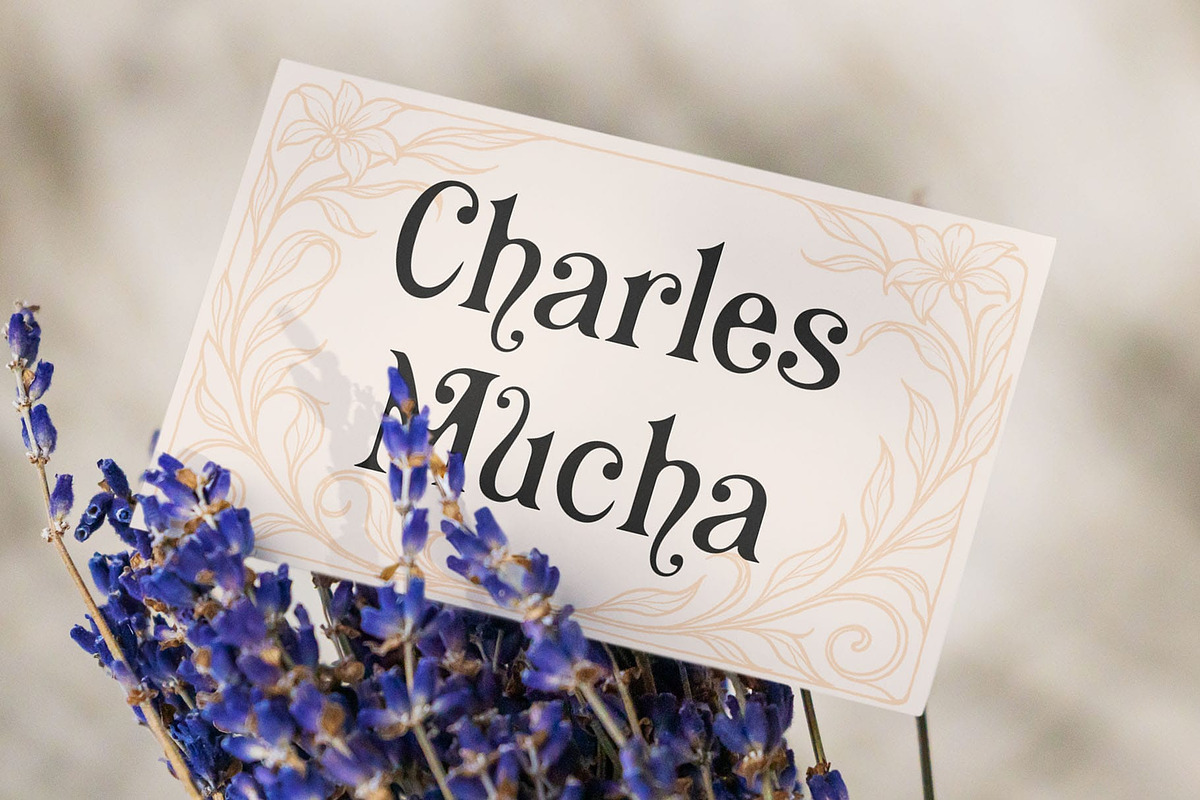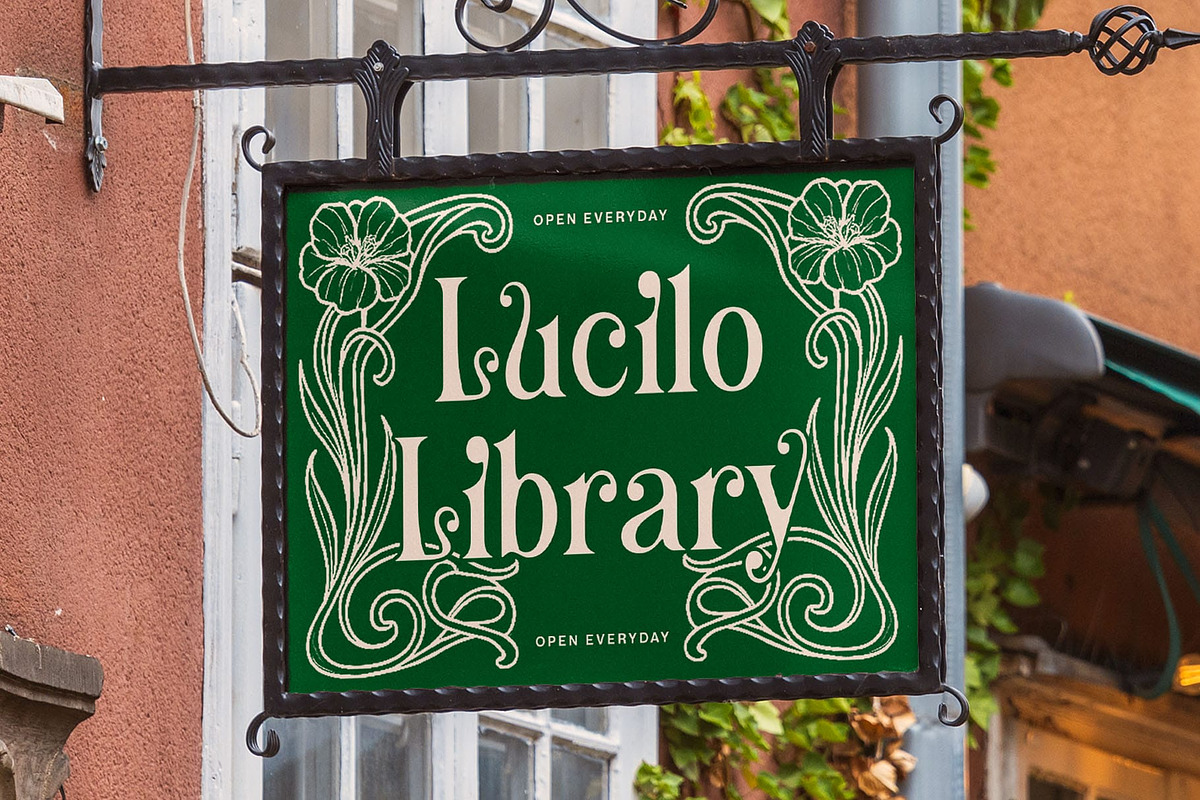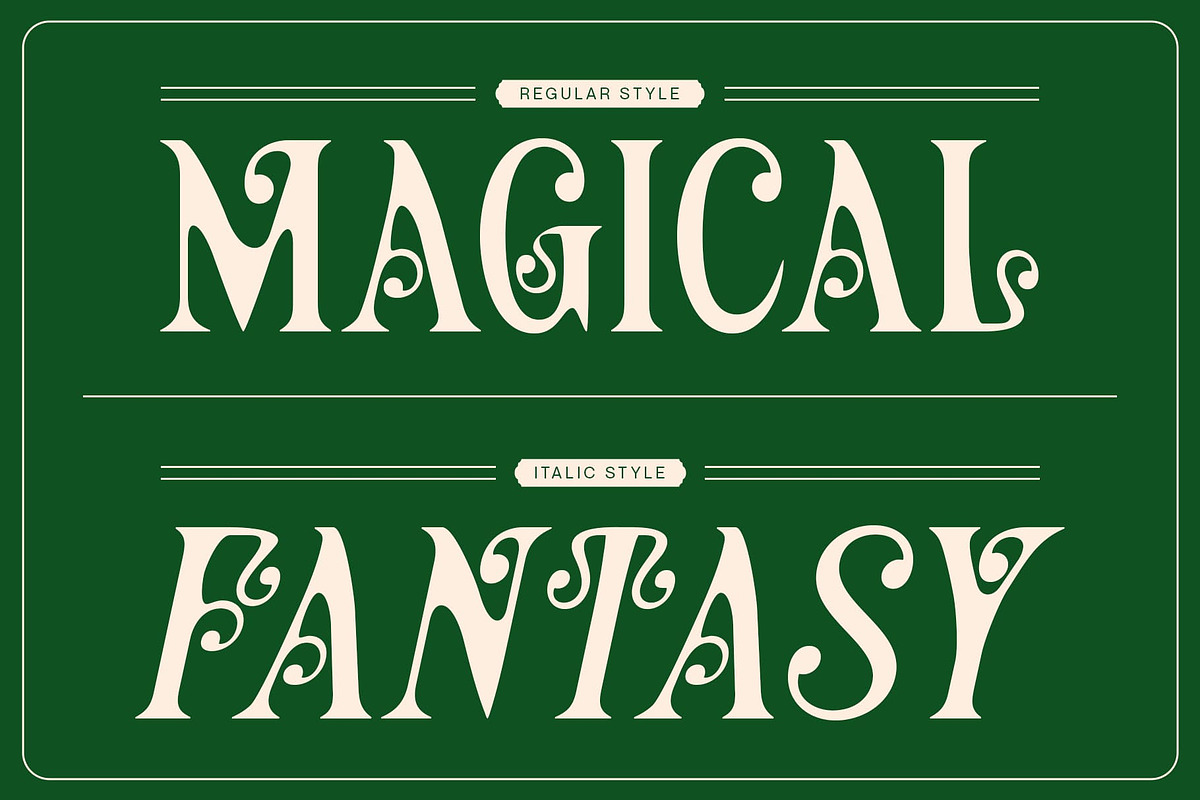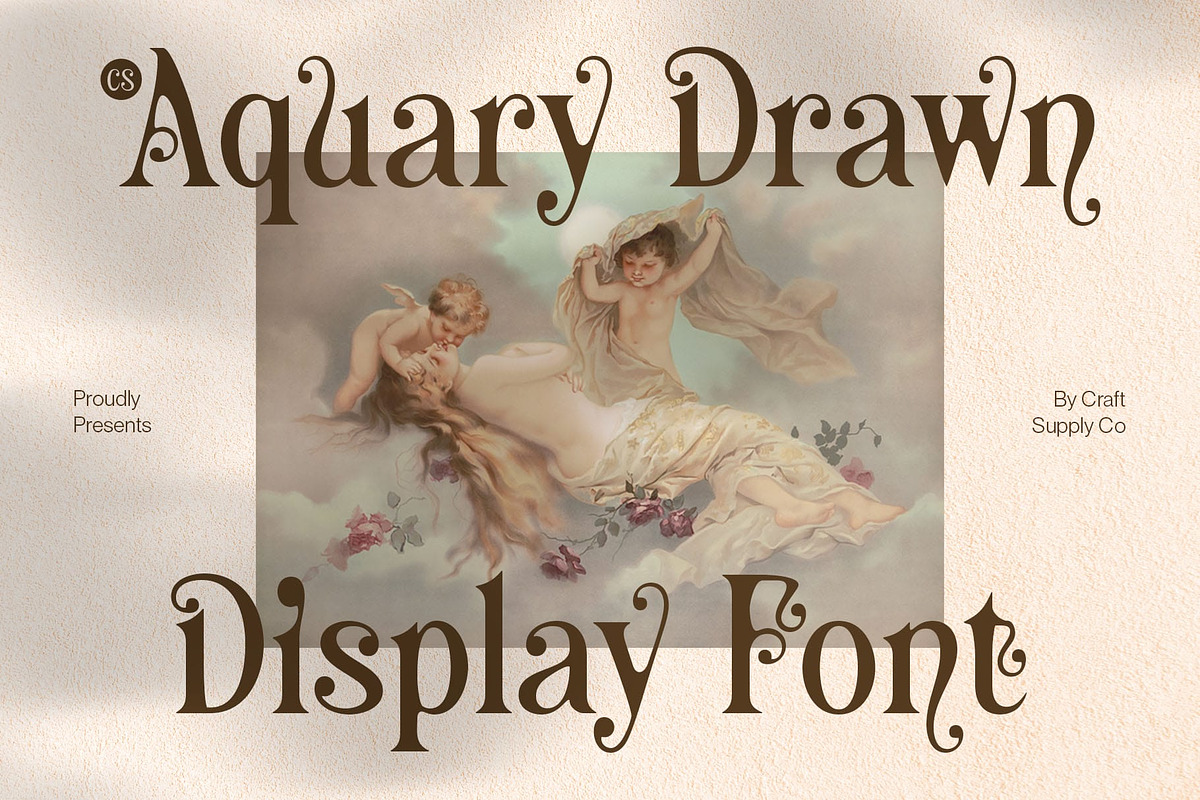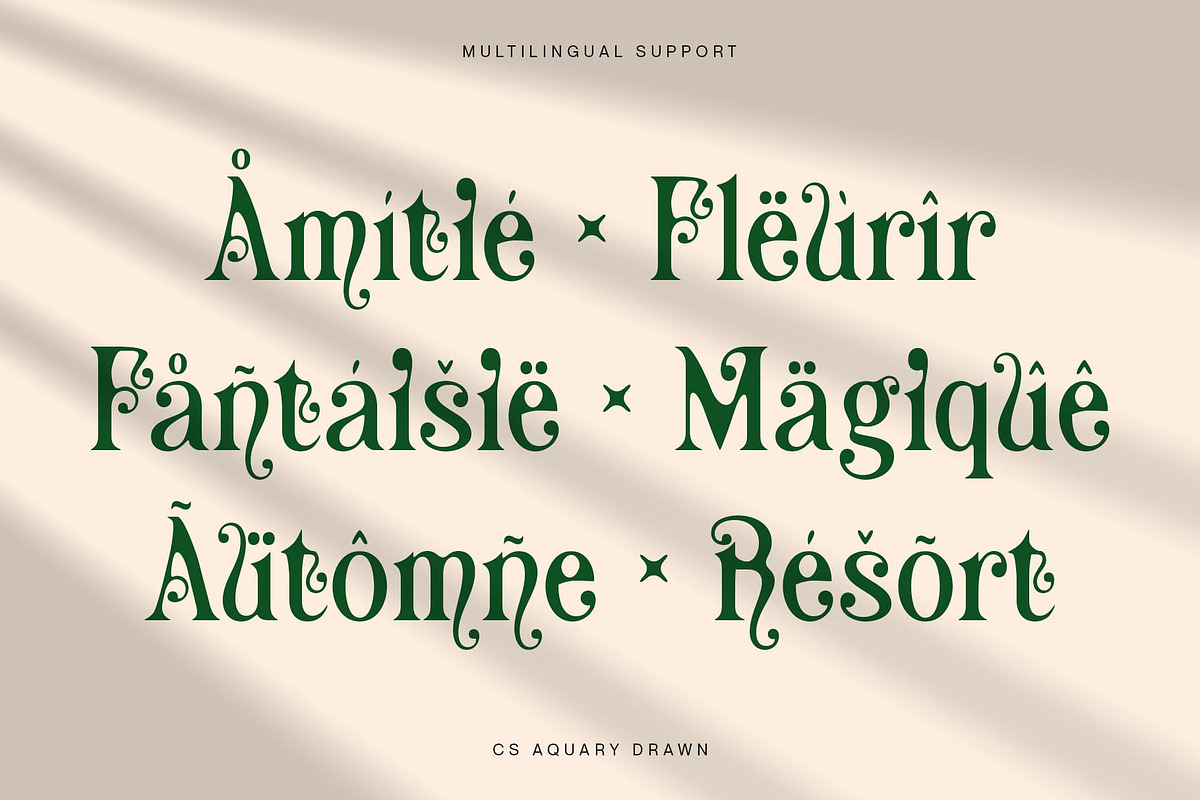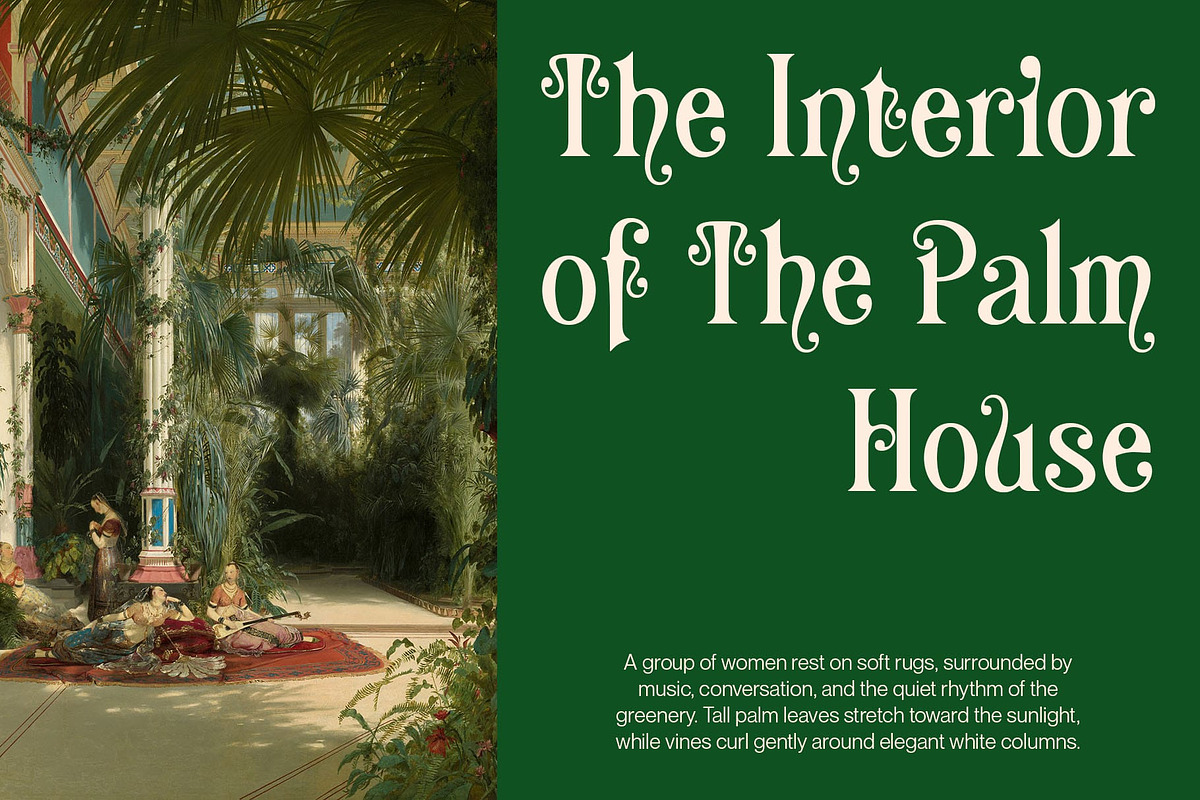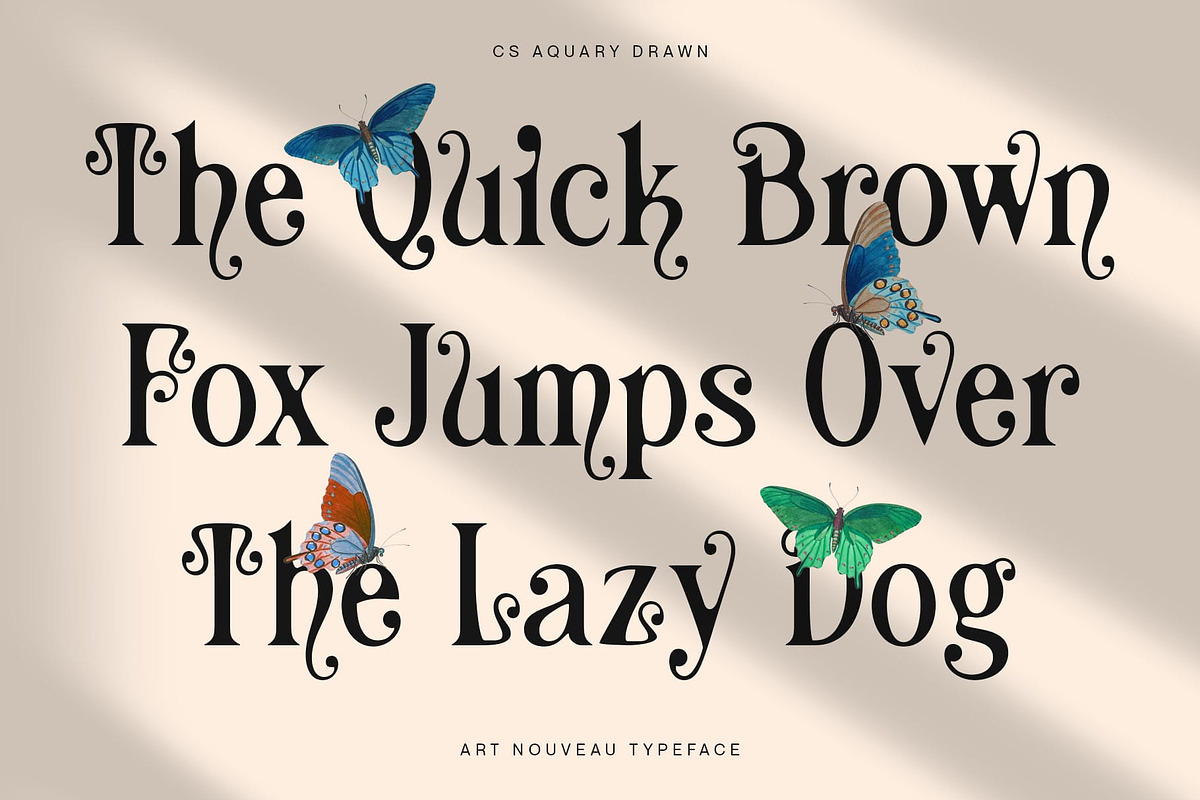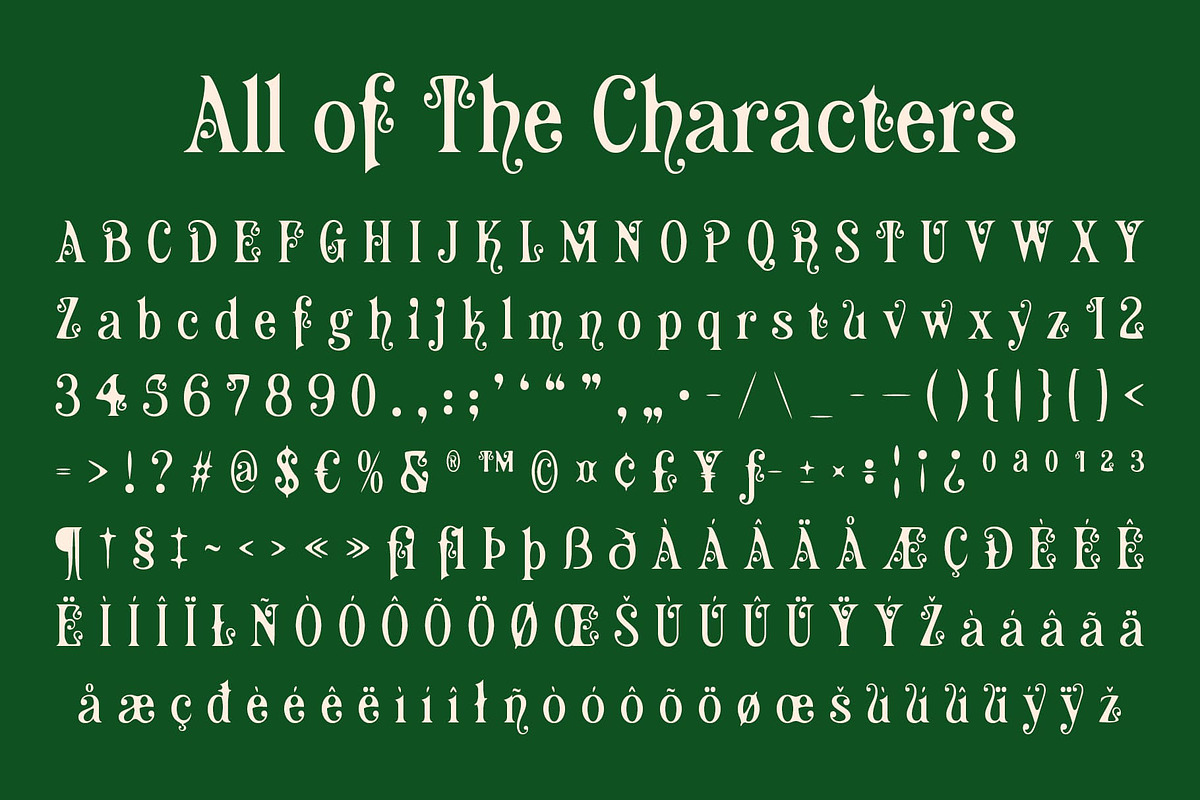
CS Aquary Drawn
CS Aquary Drawn – Where Minimalism Meets Enchanted Expression
Elegant Serif Structure with a Magical Essence CS Aquary Drawn is a modern display serif font that pairs a clean and minimalist form with delicate fantasy-inspired curves. Its refined structure brings sophistication, while its subtle stylistic nuances hint at a whimsical, otherworldly charm.
Drawn Effect for Artistic and Organic Texture The hand-drawn effect enhances each letterform with gentle irregularities and organic strokes, softening the modern structure with an artistic touch. This treatment introduces a tactile sense of craftsmanship and makes the font appear warm, expressive, and visually engaging. It’s ideal for designs where a digital-meets-handmade aesthetic is desired.
Versatile for Whimsical and Refined Projects Whether you’re designing book covers, editorials, or branding with a mystical theme, this fantasy font delivers a unique voice. It speaks of serenity and magic, making it suitable for both literary and luxury applications. The font effortlessly merges a contemporary serif style with hints of storytelling and wonder.
Perfect for Branding, Publishing, and Fantasy-Themed Designs This font is especially effective in creative branding, upscale packaging, children’s literature, or lifestyle editorials that aim to evoke a refined yet imaginative feel. If you’re seeking a typeface that bridges elegance with fantasy, this mystical font brings the ideal balance of sophistication and dreamlike allure.